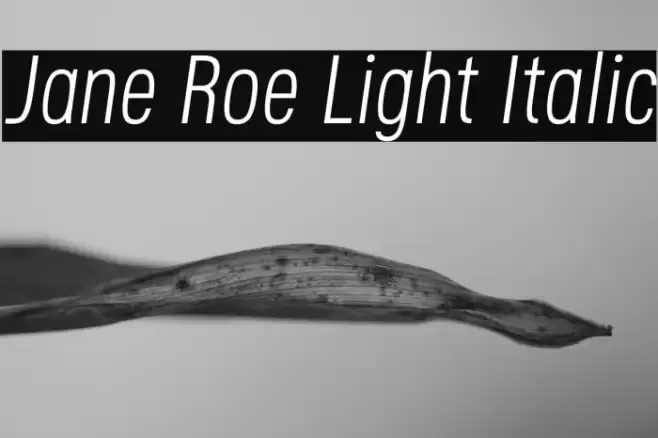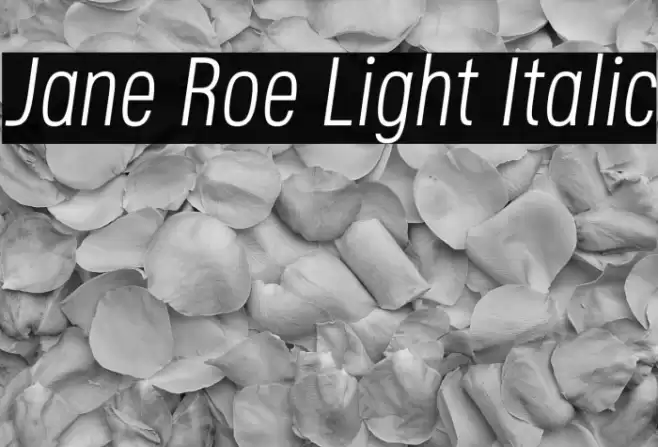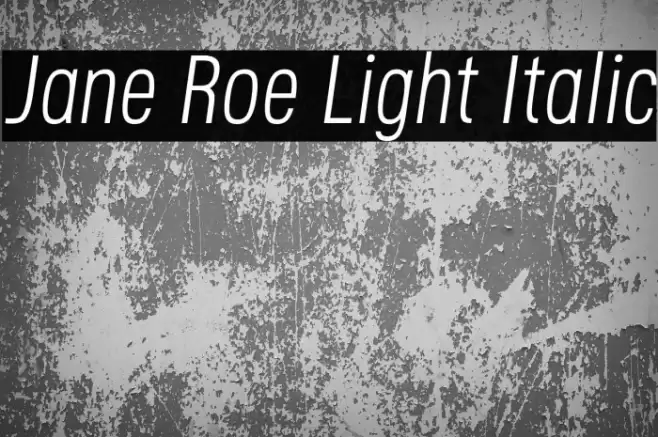
Jane Roe Light Italic Font
Jane Roe Light Italic Description
This font features a sleek and modern sans-serif design with a light weight and italic style. The characters are slightly condensed, offering a clean and streamlined appearance. The uppercase and lowercase letters maintain a consistent stroke width, contributing to a uniform look. The numerals and special characters are designed to match the overall aesthetic, ensuring cohesion across different uses. The font's italic nature adds a subtle elegance, making it suitable for both formal and informal contexts. Its readability is enhanced by the clear distinction between each character, making it versatile for various design needs.
A modern, light, italic sans-serif font with a sleek and condensed design from Uncategorized fonts.